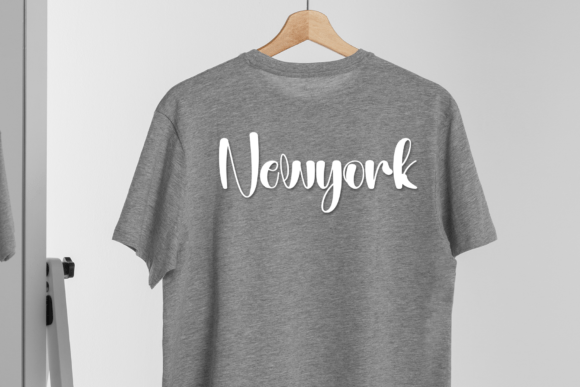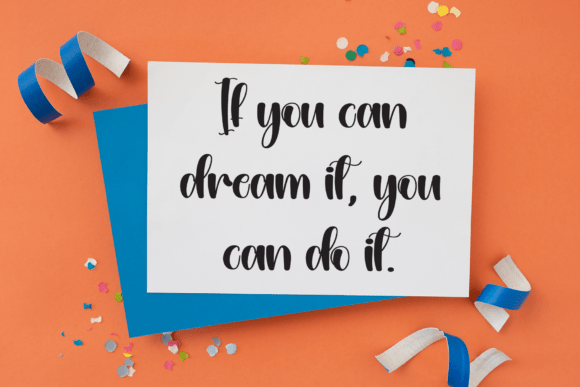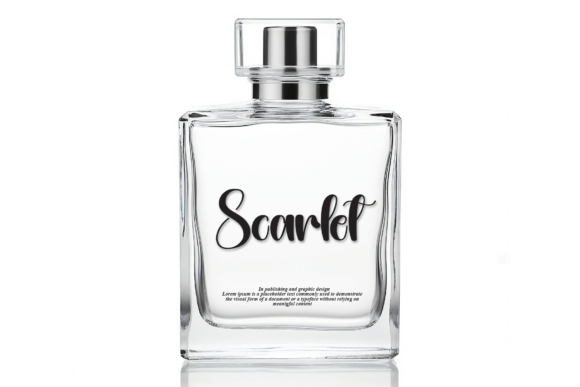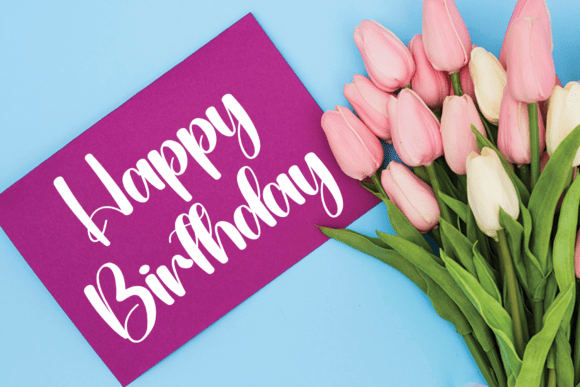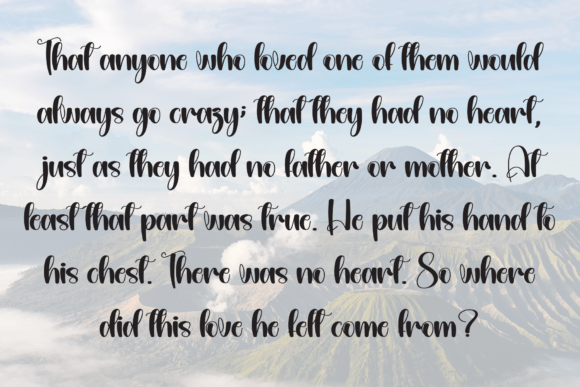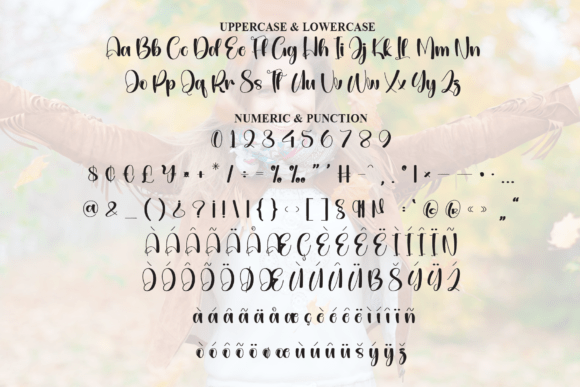
Introduction to Funny Autumn Font
As a designer, you’ve probably found yourself in a moment of creative frustration, staring at a blank page or screen, trying to come up with the perfect font to match your project’s vibe. For me, that moment often comes when I’m working on a new educational material or a personal project that requires a friendly and approachable feel. That’s when I turn to the Funny Autumn Font, a casual handwritten font that instantly adds warmth and clarity to any design.
The Funny Autumn Font is a game-changer for designers looking for a high-quality, free download that can elevate their projects. Its smooth strokes and relaxed letterforms create a natural, authentic look that’s perfect for notes, educational materials, and creative projects. With a transparent background, this versatile font can be used on any design resource, from posters to social media graphics.
Whether you’re a seasoned designer or just starting out, the Funny Autumn Font is a valuable addition to your design arsenal. Its friendly and approachable feel makes it perfect for projects that require a personal touch, and its high-quality design ensures that your work will stand out from the crowd.
Key Features of Funny Autumn Font
- High-quality, bold, and playful design suitable for creative projects and designs.
- Customizable for use in various design applications, including logos, posters, and social media graphics.
- Includes multiple font styles and weights for added versatility in creative projects.
- Perfect for adding a fun and seasonal touch to designs, making it ideal for autumn-themed creative projects.
Honest Review: Funny Autumn Font
I recently stumbled upon the Funny Autumn Font, a quirky design resource that adds a playful touch to any creative project. The font’s unique characters and illustrations make it perfect for autumn-themed designs, from invitations to social media posts.
Here’s what I like about this font:
- ✨ High-quality graphics that are crisp and clear
- ✨ A wide range of characters and symbols to choose from
- ⚠️ May not be suitable for formal or professional designs due to its playful nature
The Funny Autumn Font is a unique and playful design resource that can add a touch of creativity to any project. This high-quality font is perfect for anyone looking to create a visually appealing and engaging design.
Tips for Getting the Most Out of the Funny Autumn Font
To get the most out of the Funny Autumn Font, try using it in bold and italic styles to add emphasis and visual interest to your design. You can also experiment with different font sizes and colors to create a unique and eye-catching look.
The Funny Autumn Font is perfect for a variety of creative projects, including:
- Birthday and holiday cards
- Party invitations and decorations
- Blog posts and social media graphics
- Marketing materials and advertising campaigns